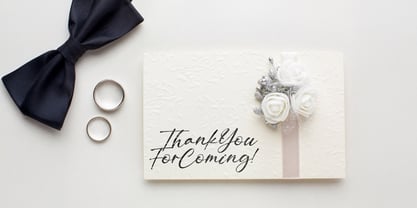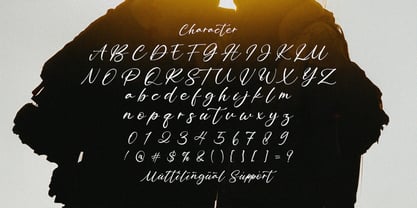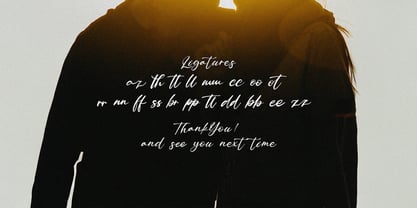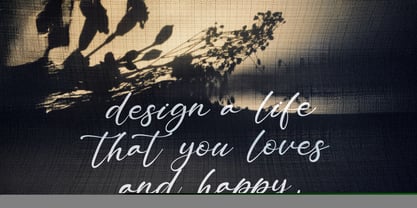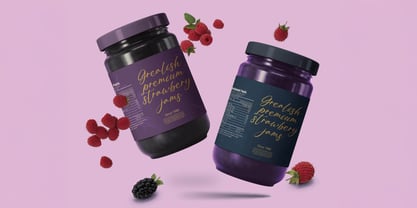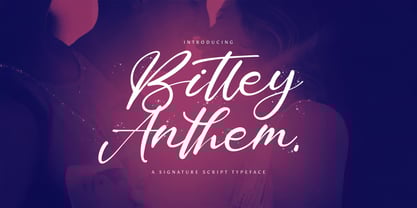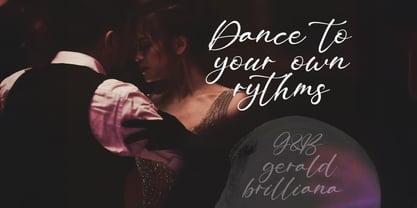
Bitley Anthem
by Stringlabs Creative Studio
The Bitley Anthem Font Family was designed by Virgiawan Listanto and published by Stringlabs Creative Studio. Bitley Anthem contains 1 styles. More about this family
Bitley Anthem is a bold, expressive handwritten font that brings personality and flair to any design. With its dynamic strokes and slightly imperfect, natural curves, this font captures the authenticity and charm of genuine handwriting. Ideal for projects that call for a personal touch, Bitley Anthem shines in everything from branding and logos to posters, social media graphics, and more.
Designers: Virgiawan Listanto
Foundry: Stringlabs Creative Studio